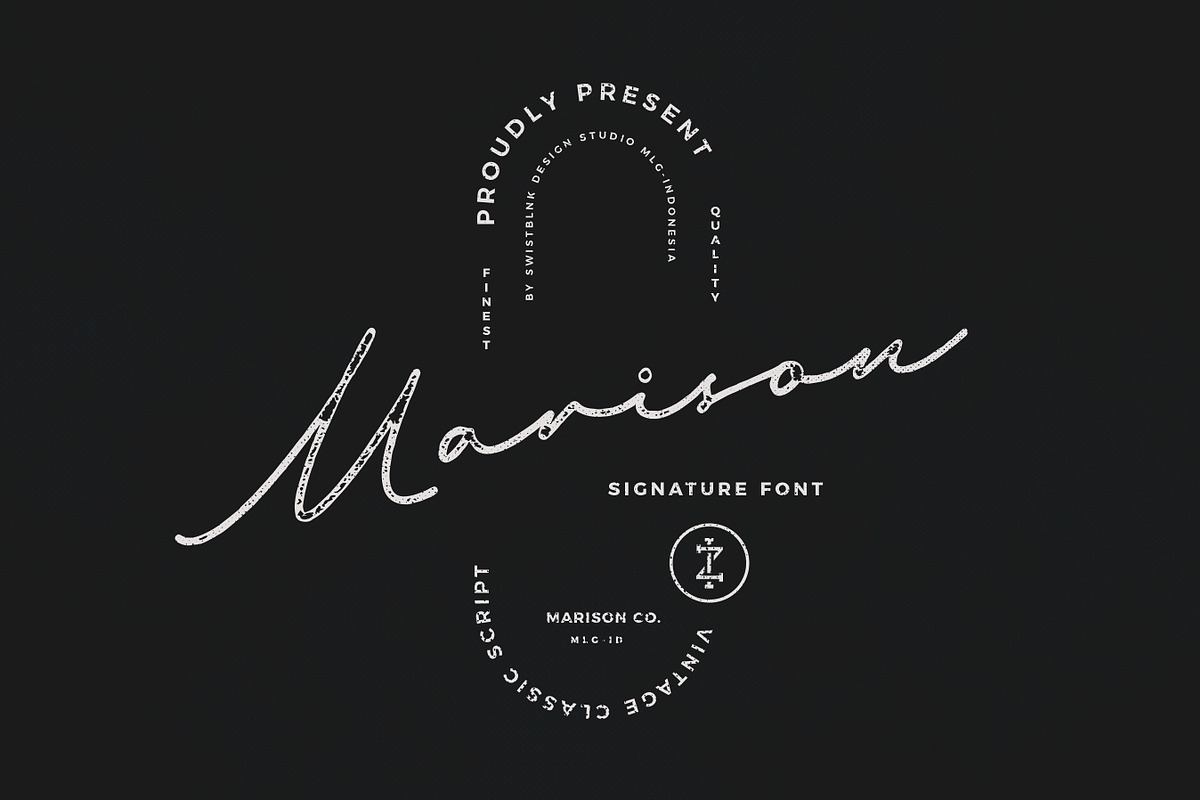
Marison Type Collection Free Download is a beautifully crafted font bundle that blends elegance, versatility, and modern design. Featuring a mix of refined serif, sans serif, and stylish script fonts, the Marison collection is ideal for branding projects, wedding invitations, editorial layouts, product packaging, logos, and upscale social media content.
Each typeface in the Marison Collection is designed to complement the others, giving you the flexibility to create cohesive and visually stunning typography systems. Whether you're aiming for classic sophistication or modern flair, this collection has a font to match your creative vision.